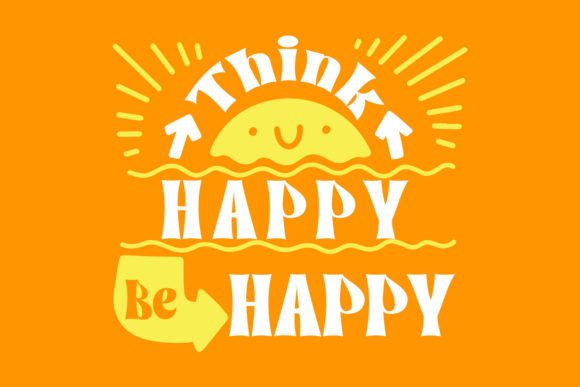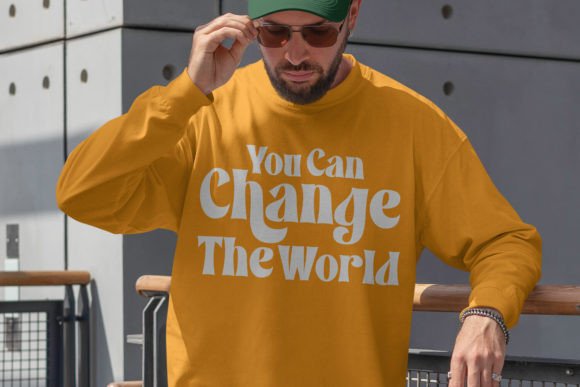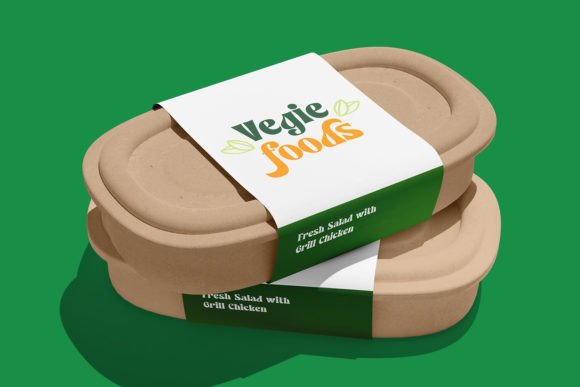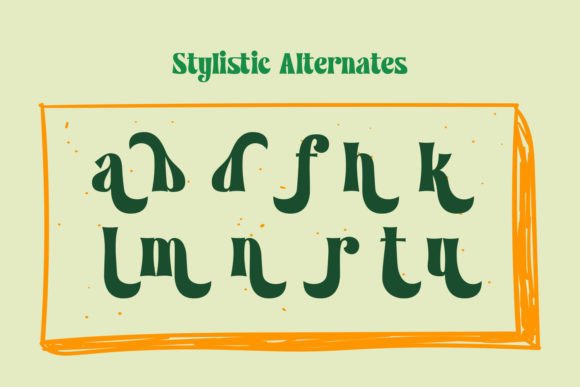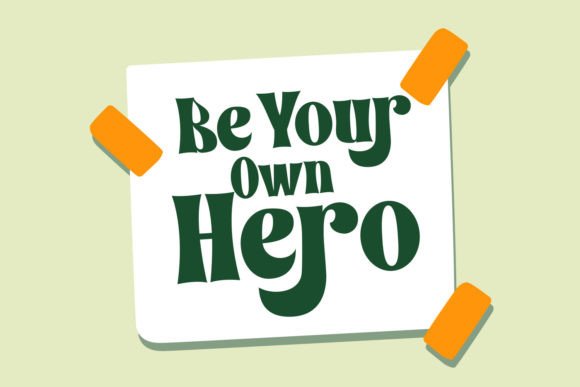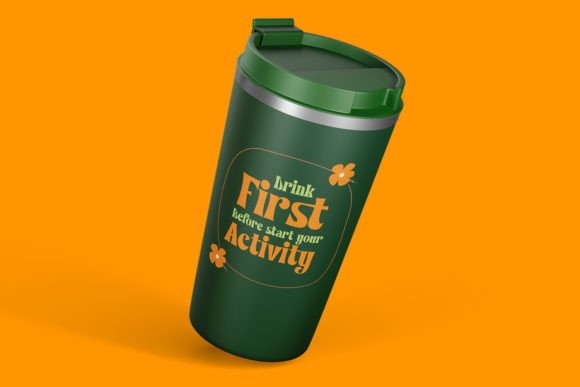
The Ultimate Guide to Boilstade Font: Adding Playful Energy to Your Designs
Have you ever been in the middle of a design project, and suddenly, you’re stuck on finding the perfect font? I recall a recent experience where I was working on a children’s book, and I needed a font that would bring the story to life. The font had to be playful, yet bold, and it had to make the text stand out. That’s when I stumbled upon the Boilstade font, and it completely transformed my project.
First Impressions: A Lively Display Font
Boilstade is a lively display font designed to bring a playful energy to your projects. Made in a quite thick weight, Boilstade ensures your text stands out with a bold and captivating presence. The font’s playful style is highlighted by its rounded shapes, giving each character a friendly feel. It’s perfect for designers, crafters, and creative hobbyists looking to add a touch of whimsy to their work.
• ✅ Bold and captivating presence that makes text stand out
• ✅ Playful style with rounded shapes, giving each character a friendly feel
• ✅ Thick weight that’s perfect for display text and headings
• ✅ Easy to read, even at smaller sizes
• ⚠️ May not be suitable for body text or long paragraphs, as it’s quite bold and attention-grabbing
• ⚠️ Limited use of OpenType features, glyphs, or stylistic alternates (but more on that later)
Exploring OpenType Features, Glyphs, and Stylistic Alternates
While Boilstade may not have an extensive range of OpenType features, glyphs, or stylistic alternates, it still offers some exciting possibilities. For example, you can experiment with:
• Ligatures: While not extensive, Boilstade does offer some ligatures to help create a more cohesive look
• Stylistic alternates: Some characters have alternate forms that can add visual interest to your text
While the origins of Boilstade are unclear, it’s easy to imagine that the designer was inspired by the playful, carefree spirit of childhood. Perhaps they wanted to create a font that would bring a smile to people’s faces and add a touch of whimsy to their designs.
A: Boilstade is perfect for display text, headings, and titles, where you want to make a bold statement.
A: While possible, Boilstade is quite bold and attention-grabbing, making it less suitable for long paragraphs or body text.